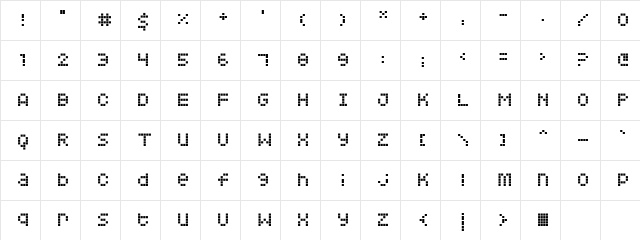
Squarodynamic 06 Regular
Squarodynamic 06 Family
Complete Squarodynamic 06 Regular glyph index. Displaying only characters natively supported by Squarodynamic 06 Regular font.
Design Context for Squarodynamic 06
Squarodynamic 06 is a composed and adaptable typeface that performs quietly and consistently across a wide range of design contexts.